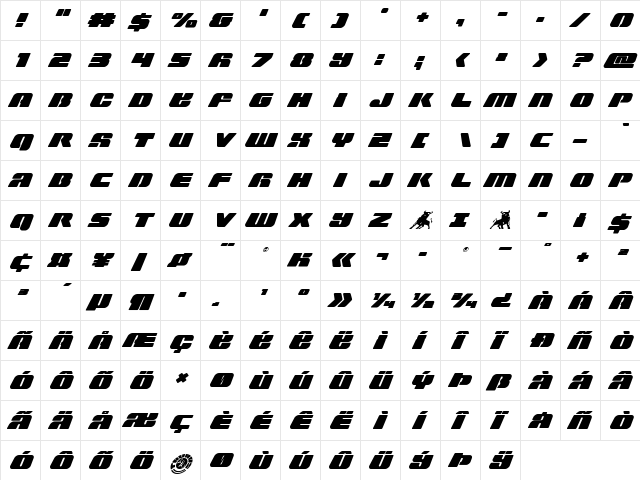
Capricus Skewed Regular Font Preview
Capricus Skewed Regular
Capricus Skewed Regular Font Details
Design Context for Capricus Skewed Typeface
Capricus Skewed is a composed and adaptable typeface that performs quietly and consistently across a wide range of design contexts.